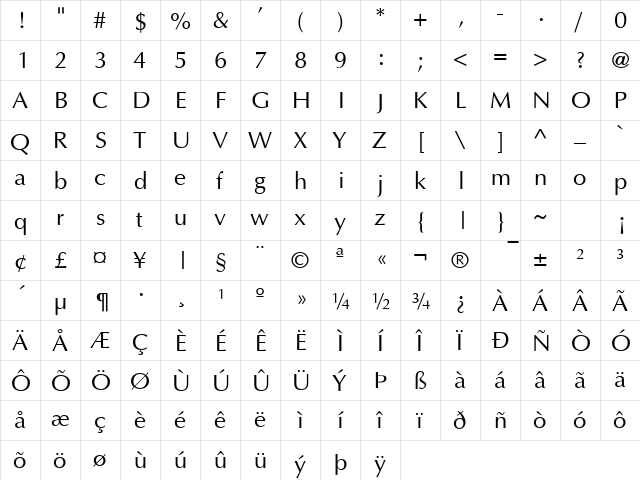
ft5n Regular
Design Context for ft5n Typeface
ft5n is a composed and adaptable typeface that performs quietly and consistently across a wide range of design contexts.